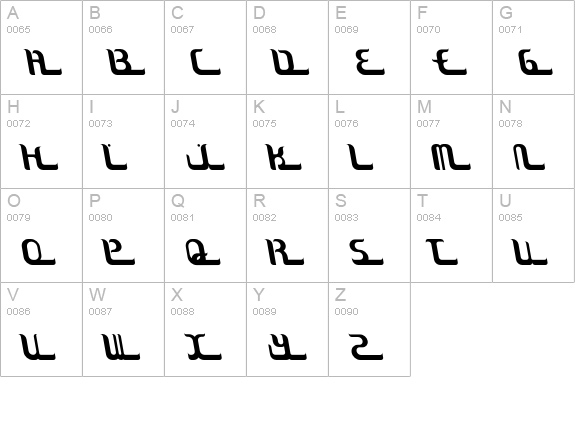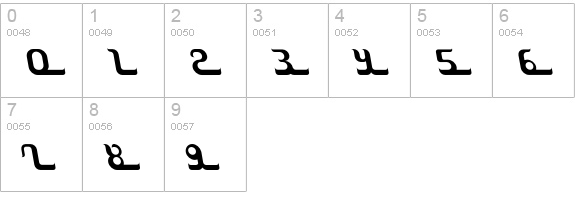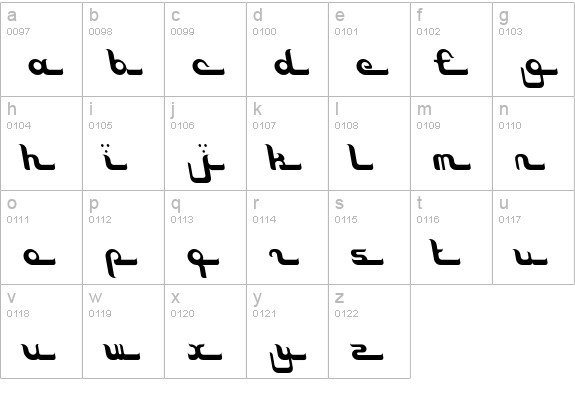
Exotica-Lotus Font Details
Introducing Exotica-Lotus font, a captivating typeface that exudes elegance and sophistication. Its intricate design features delicate curves and intricate details that give it a unique and exotic appeal. With its graceful letterforms and stylish flourishes, Exotica-Lotus font is perfect for adding a touch of luxury to your projects. The best part? Exotica-Lotus font is completely free to download at FontsMarket.com. This means you can elevate your designs without breaking the bank. Whether you're working on invitations, branding materials, or any other creative project, Exotica-Lotus font will add a touch of glamour and charm. Download Exotica-Lotus font today and let its beauty enhance your designs with its free availability at FontsMarket.com.